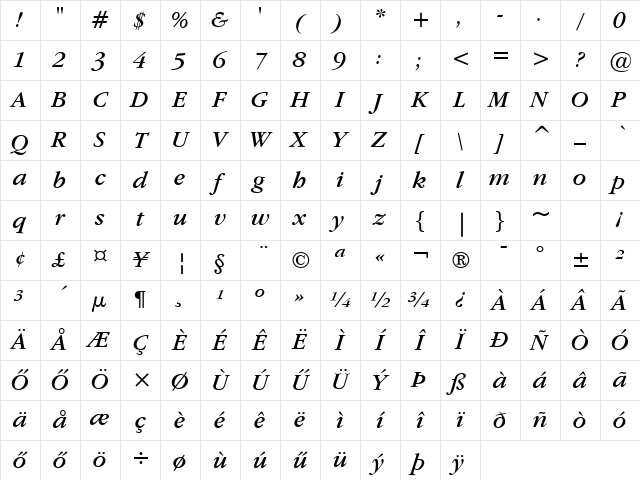
Garamond BkHU Book Italic
Style: Book Italic
Complete Garamond BkHU Book Italic glyph index. Displaying only characters natively supported by Garamond BkHU Book Italic font.
Design Context for Garamond BkHU
Garamond BkHU is a composed and adaptable typeface that performs quietly and consistently across a wide range of design contexts. The slanted form adds forward momentum and visual energy.
Pro Tip: Use Garamond BkHU for emphasis, pull quotes, and subheadings where its slanted energy can add rhythm to the layout.